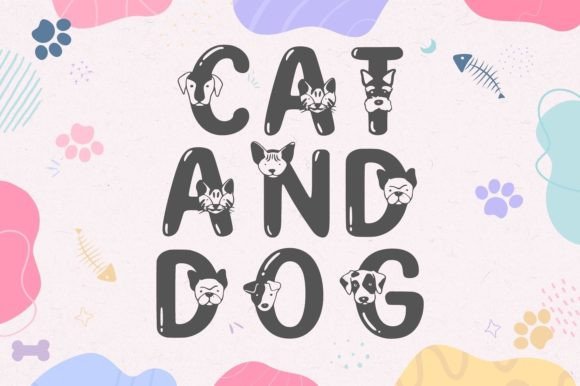
The Purr-fect Font: A Deep Dive into Cat and Dog Font
I’ll never forget the time I was working on a project for a pet grooming client. I had all the design elements ready, but I was stuck on finding the perfect font to convey the playful and affectionate vibe of their business. That’s when I stumbled upon the Cat and Dog font, and it instantly became the star of the show. In this article, I’ll share my experience with this adorable font, its features, and how to make the most of it in your designs.
So, what makes Cat and Dog font so special? Here are some things I love:
- ✨ Adorable pet faces: The font is full of cute cat and dog faces that add a playful touch to any design.
- ✅ Versatility: Whether you’re working on a pet-related project or not, this font can elevate any creation with its unique charm.
- 💬 Easy to read: Despite its decorative nature, the font remains clear and readable, even in smaller sizes.
Of course, no font is perfect, and Cat and Dog has a few quirks:
- 🤔 Limited use cases: While the font is versatile, it’s best suited for designs that require a playful, lighthearted tone.
- ⚠️ Overuse can be overwhelming: Use the font sparingly to avoid overwhelming your design with too many pet faces.
The Designer Inspiration Behind Cat and Dog Font
The story behind Cat and Dog font is one of passion and love for animals. The designer, a self-proclaimed animal lover, created the font as a way to bring a smile to people’s faces. With a background in illustration and a passion for typography, the designer poured their heart and soul into creating a font that would capture the playful and affectionate nature of our beloved pets.
| Font Name | Cat and Dog Font |
| Author | NN-Font Design |
| What type of designs is Cat and Dog font best suited for? | Cat and Dog font is perfect for designs that require a playful, lighthearted tone, such as pet-related projects, children’s books, or greeting cards. |